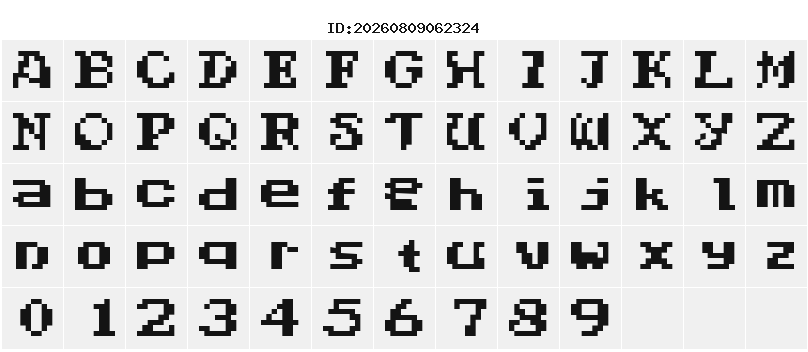
• Font Name: Phantalia
• Designer: Caveras / Cliff Modes
• Description: Phantalia by Caveras - based on an original pixel font used in the Tales of Phantasia video game for the SNES (Wolf Team/Namco, 1995).
About Phantalia.ttf